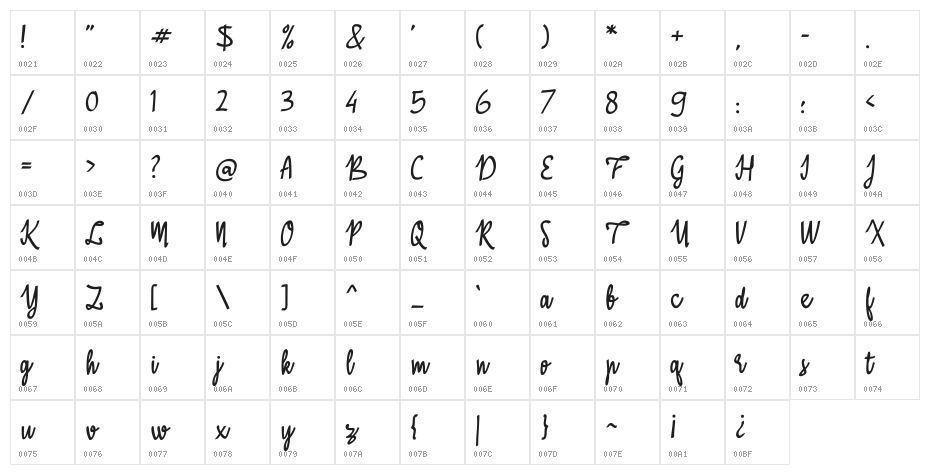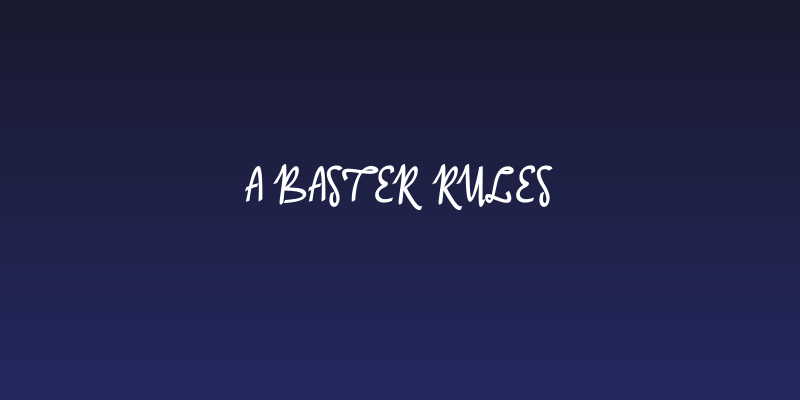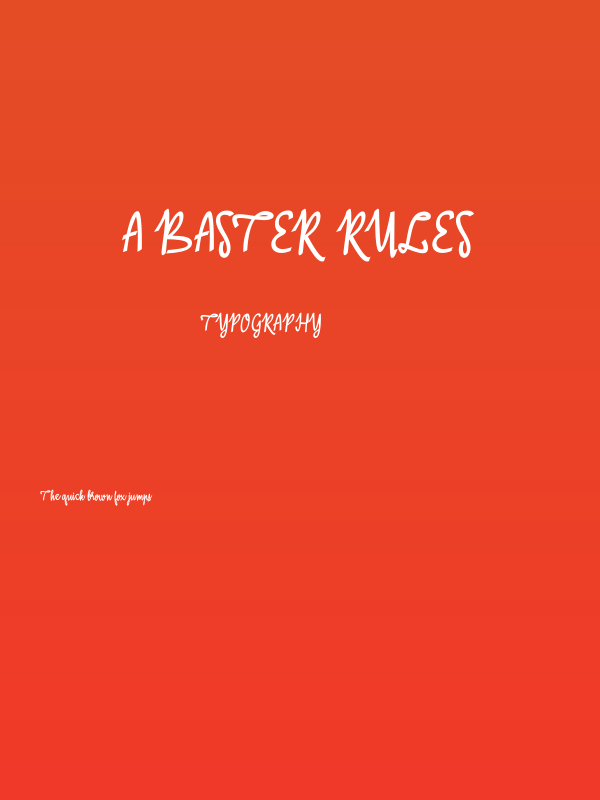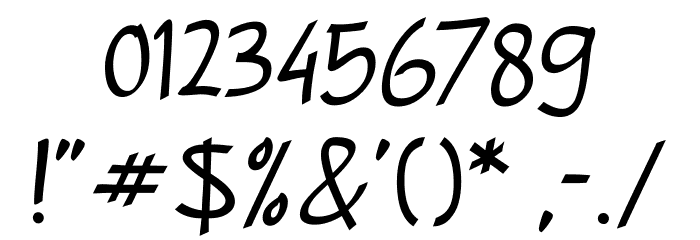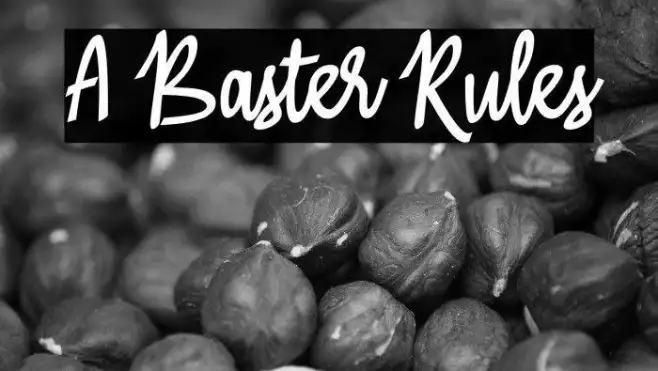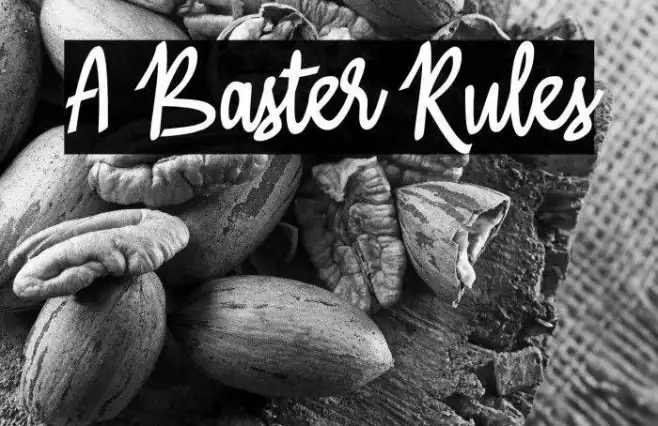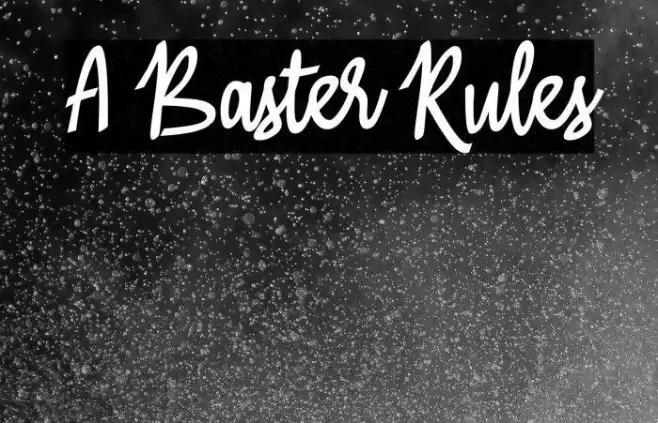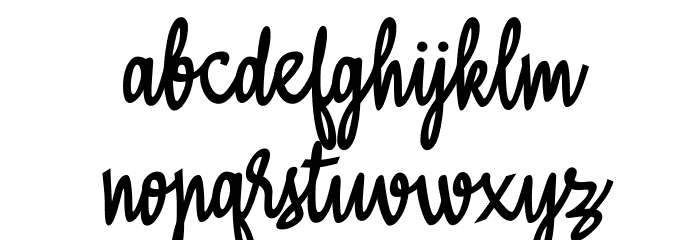
A Baster Rules Font
A Baster Rules Description
This font features a playful and energetic script style, characterized by its flowing, cursive letterforms. The uppercase letters are bold and dynamic, with a slight slant that adds a sense of movement. The lowercase letters maintain a consistent style, with smooth curves and loops that enhance its handwritten appearance. Numbers are clear and legible, following the same cursive style. The special characters are well-integrated, maintaining the overall aesthetic. This font's lively and informal design makes it suitable for creative projects.
| Proposed Projects | Ideal for greeting cards, invitations, branding, and social media graphics. |